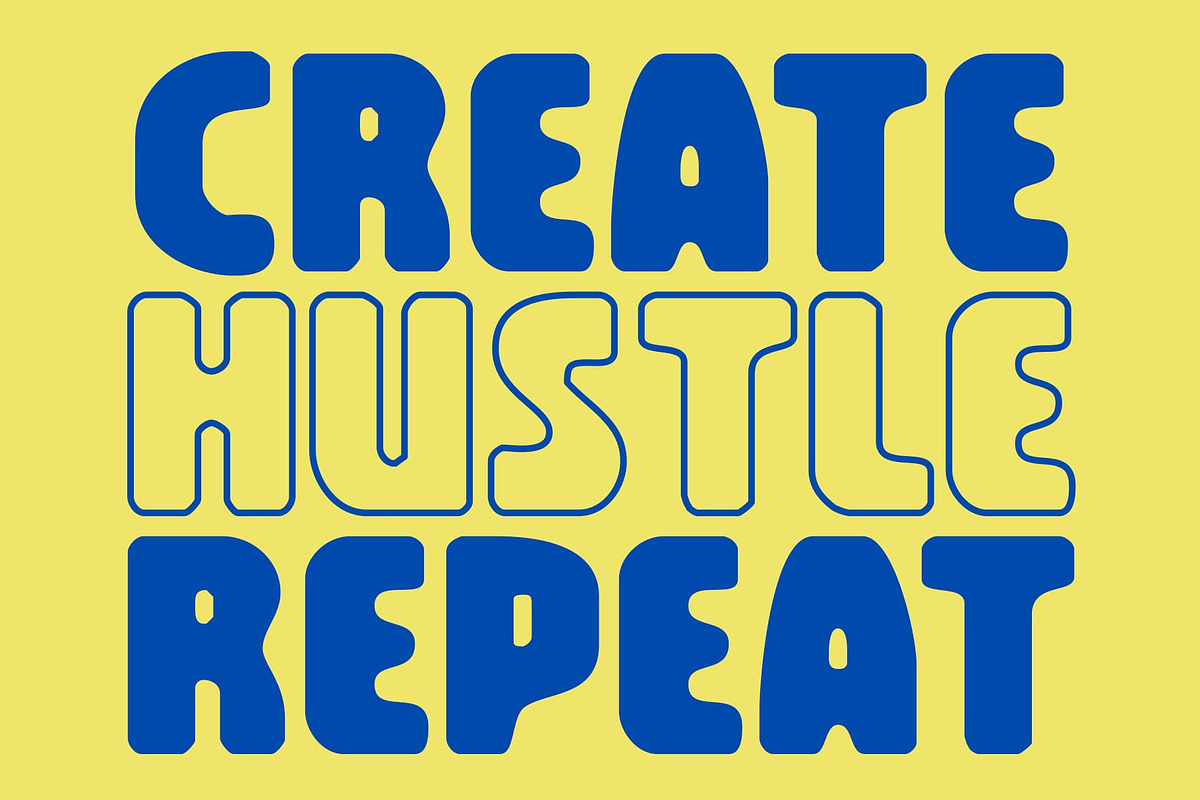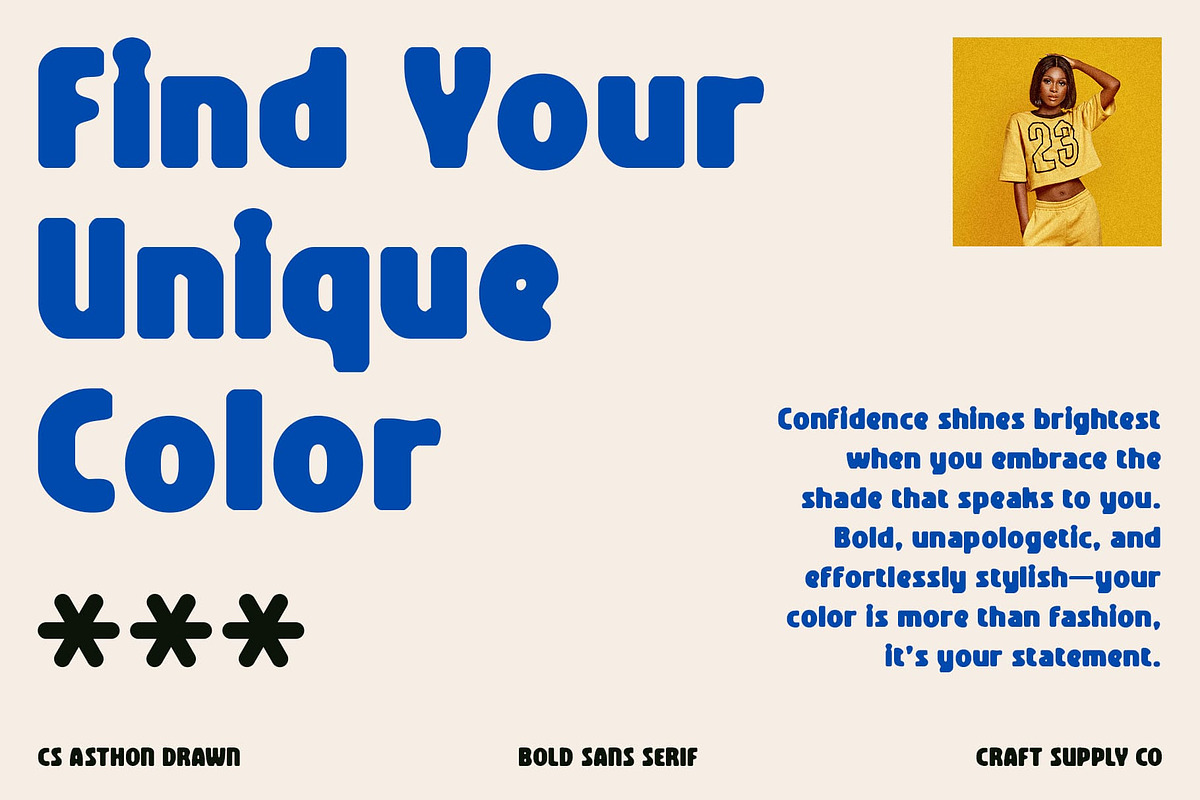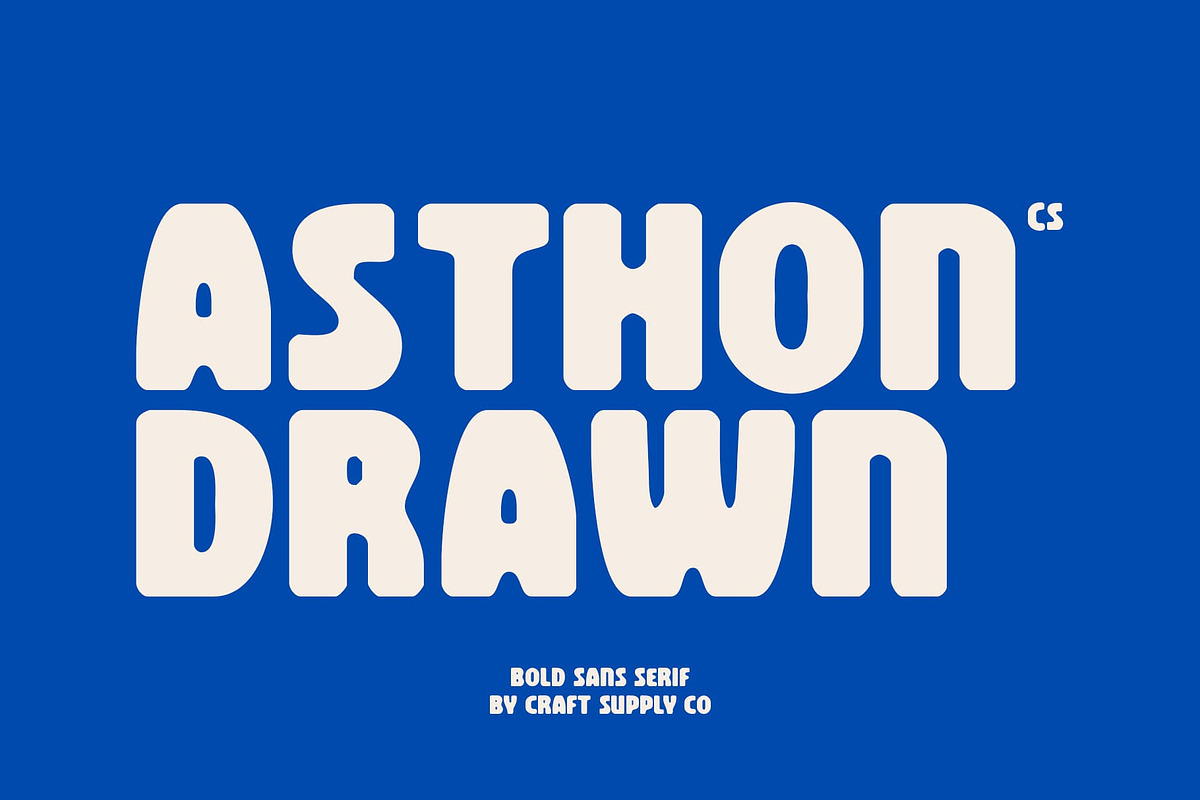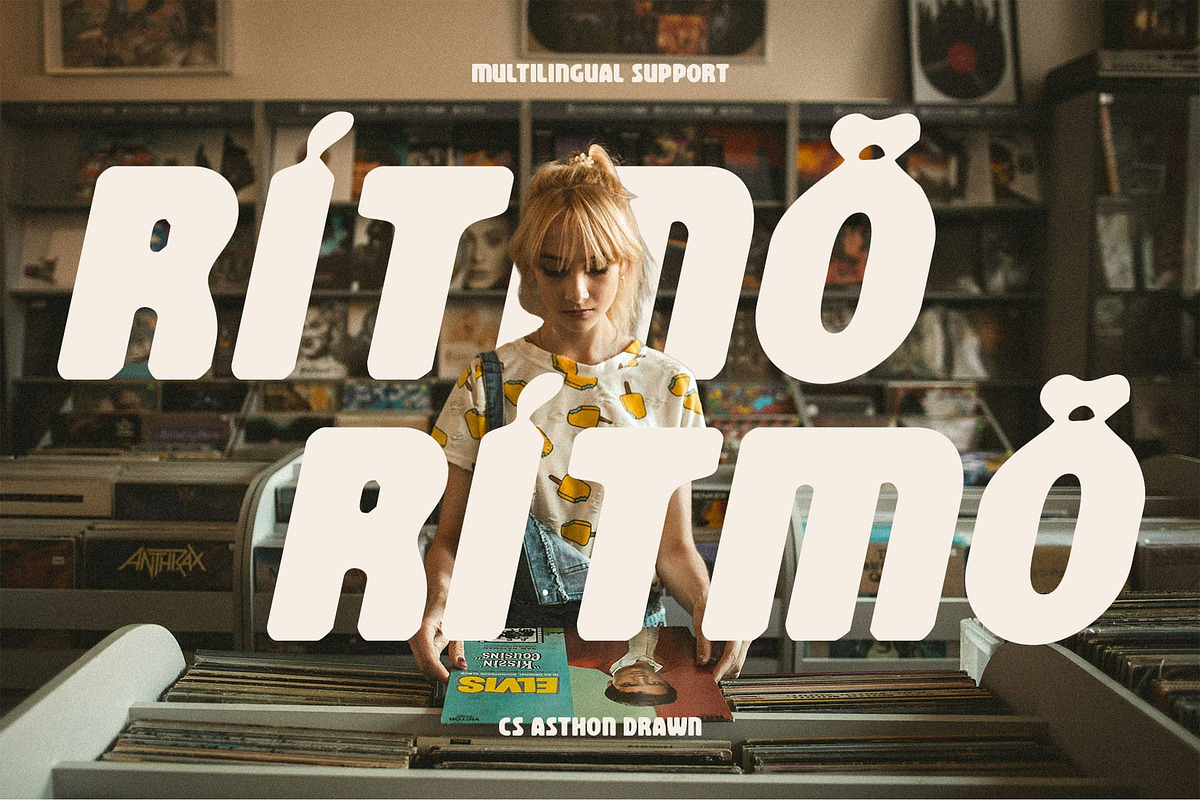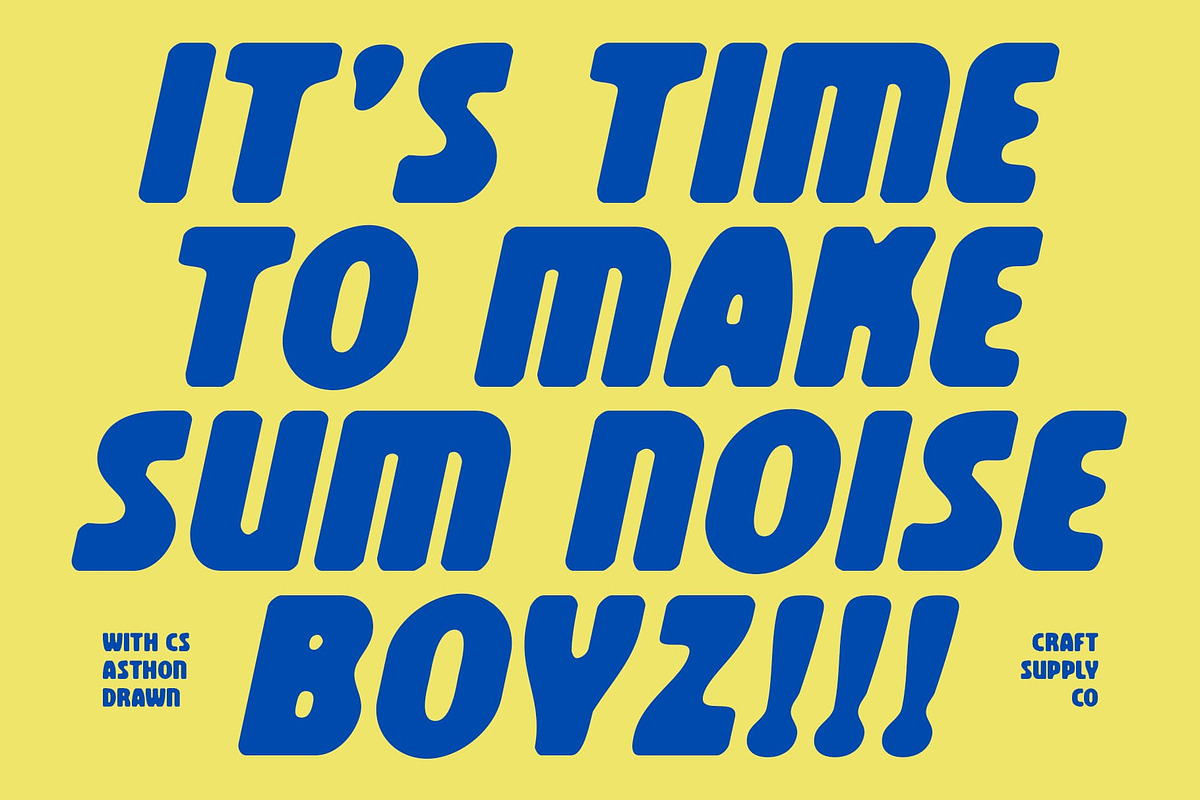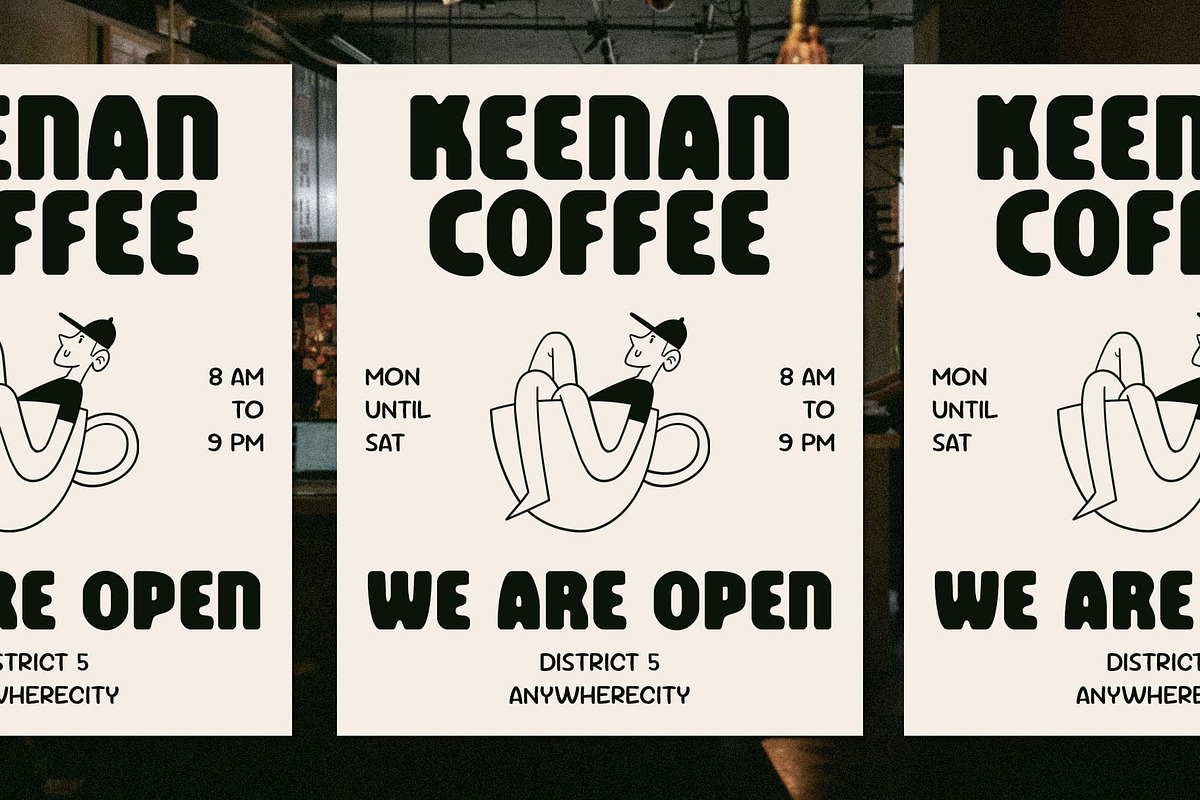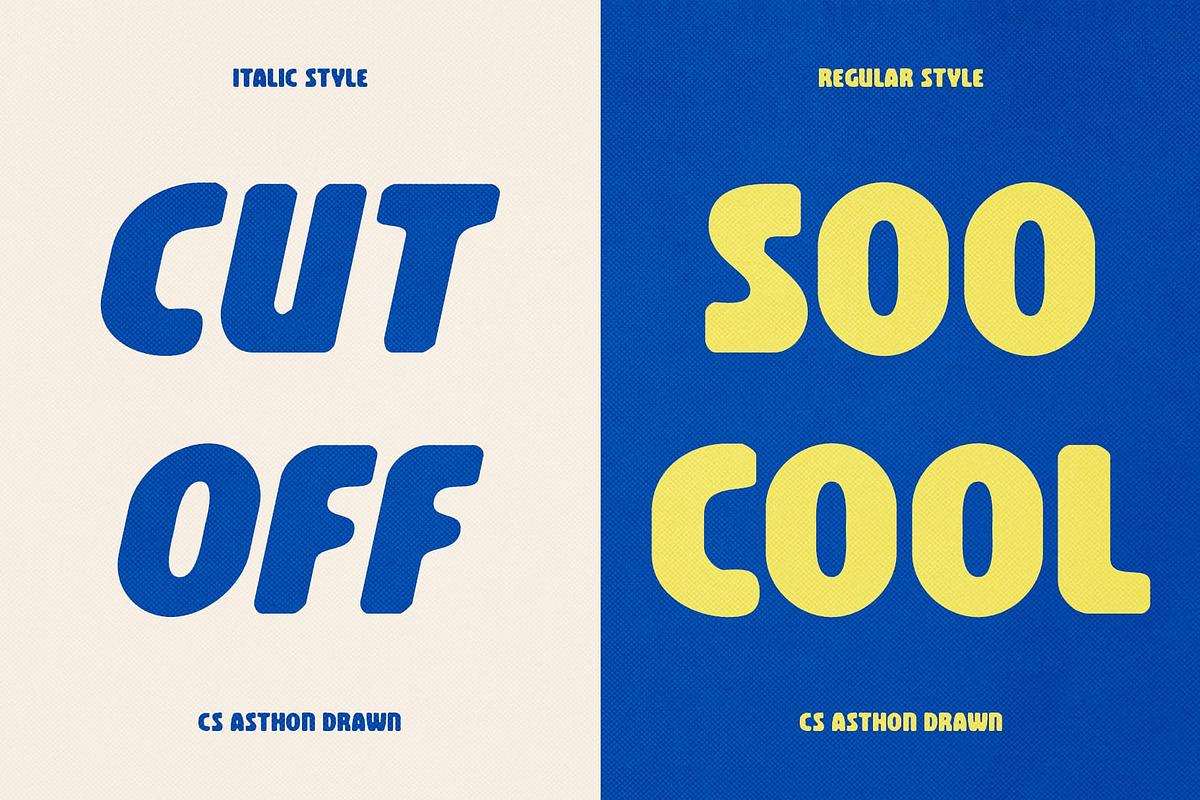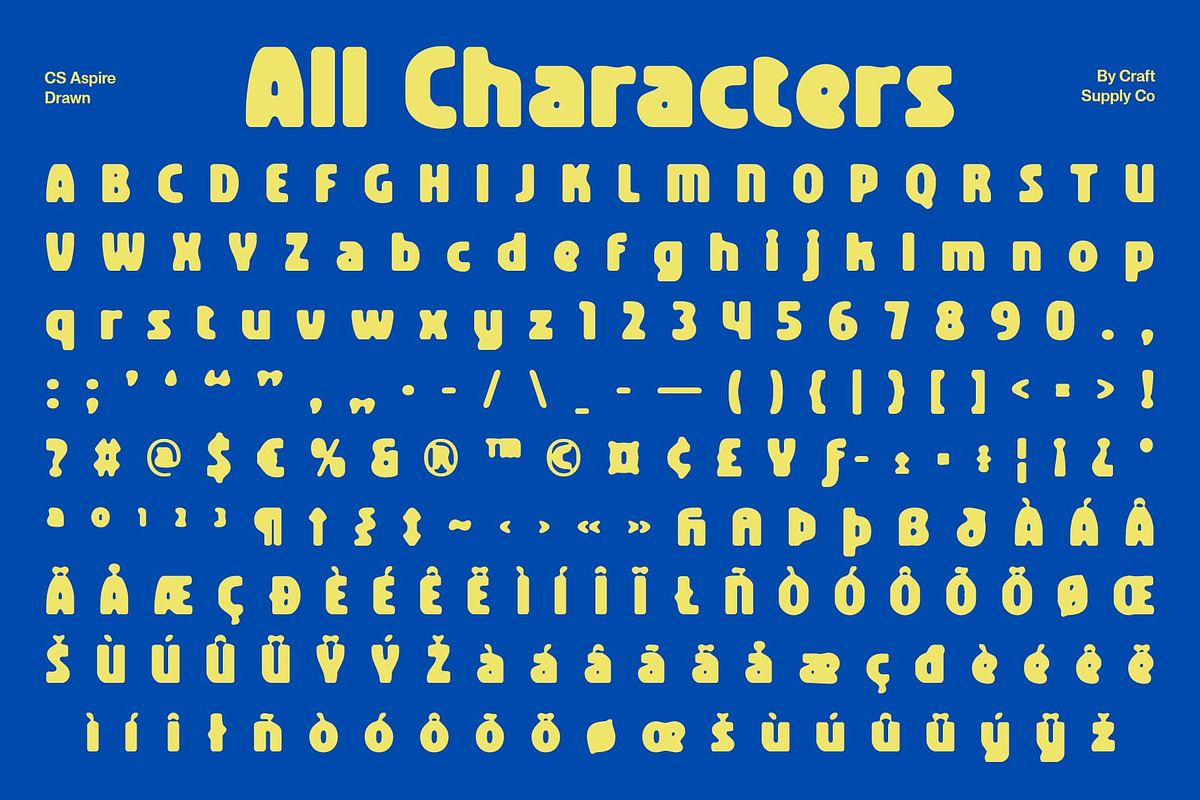
CS Asthon Drawn
CS Asthon Drawn – Bold Sans Serif Display: Modern Energy with Artistic Character and Handmade Texture
Striking Modern Shapes for Maximum Impact This is a bold sans serif display font designed to make a statement. With its commanding modern shapes and strong proportions, it captures attention instantly, making it ideal for projects that need bold typography with presence and confidence.
Handmade Texture with Expressive Flair The drawn, handmade touch enhances its modern structure with a human, artistic quality. This crafted texture softens the precision of its bold forms, resulting in a font that feels authentic, expressive, and visually dynamic while still remaining clean and professional.
Contemporary Yet Versatile Aesthetic Blending boldness with creativity, offers a contemporary aesthetic that fits perfectly into today’s design trends. Its combination of strength and artistic detail makes it a great choice for projects that aim to balance modern style with personality.
Perfect for Bold Creative Projects From headlines and posters to branding and logos, adapts effortlessly across applications. Its bold forms and expressive finish make it especially effective in designs that require impact, energy, and a contemporary visual identity.